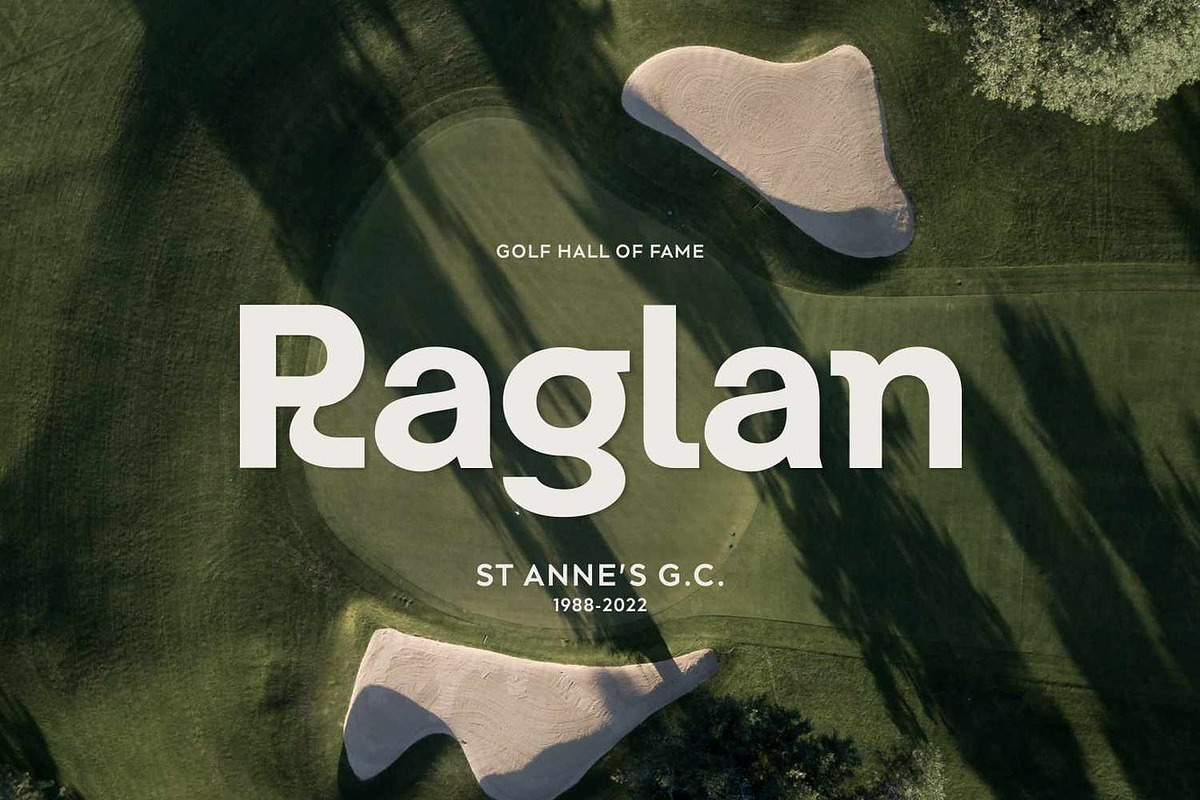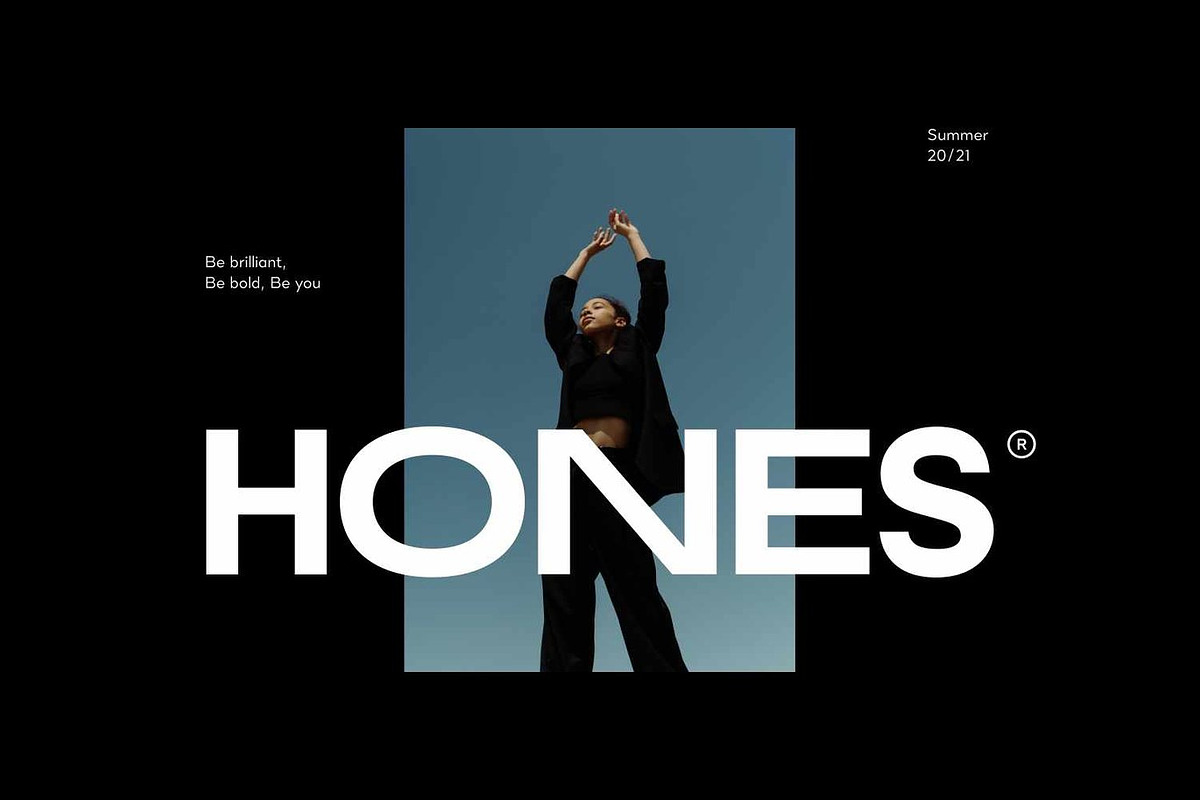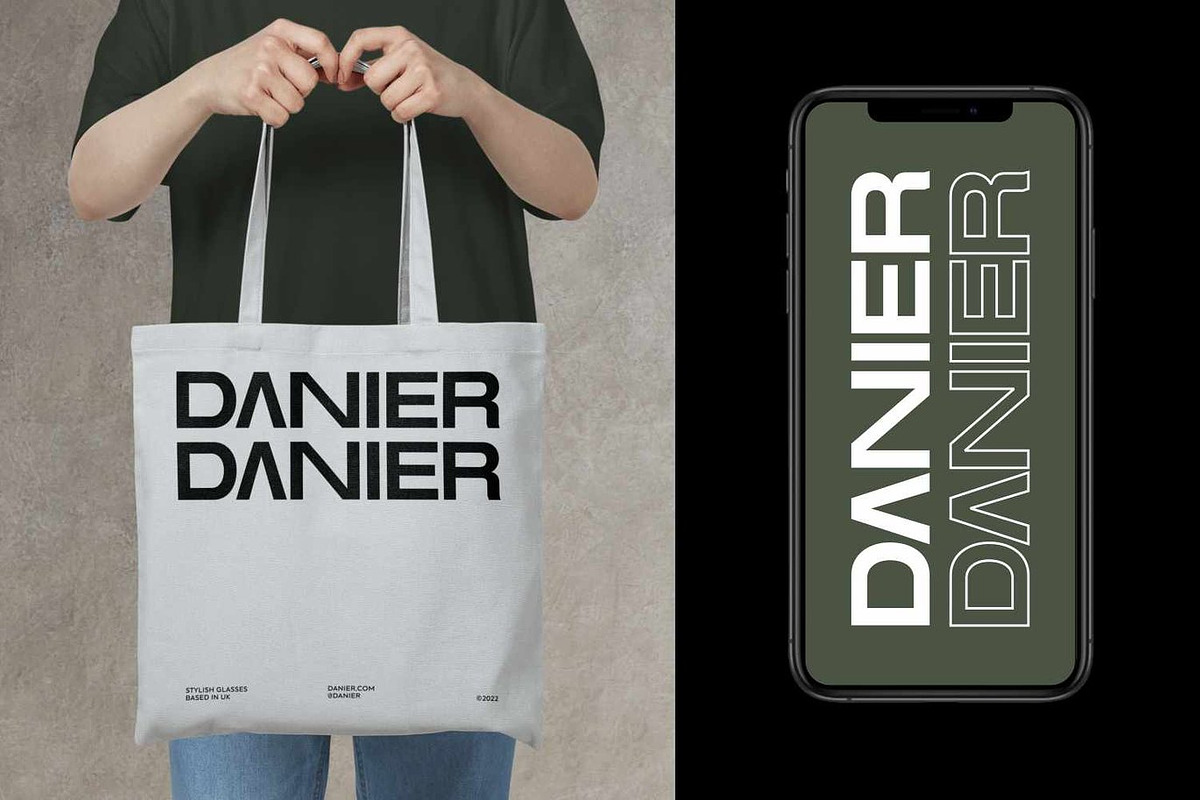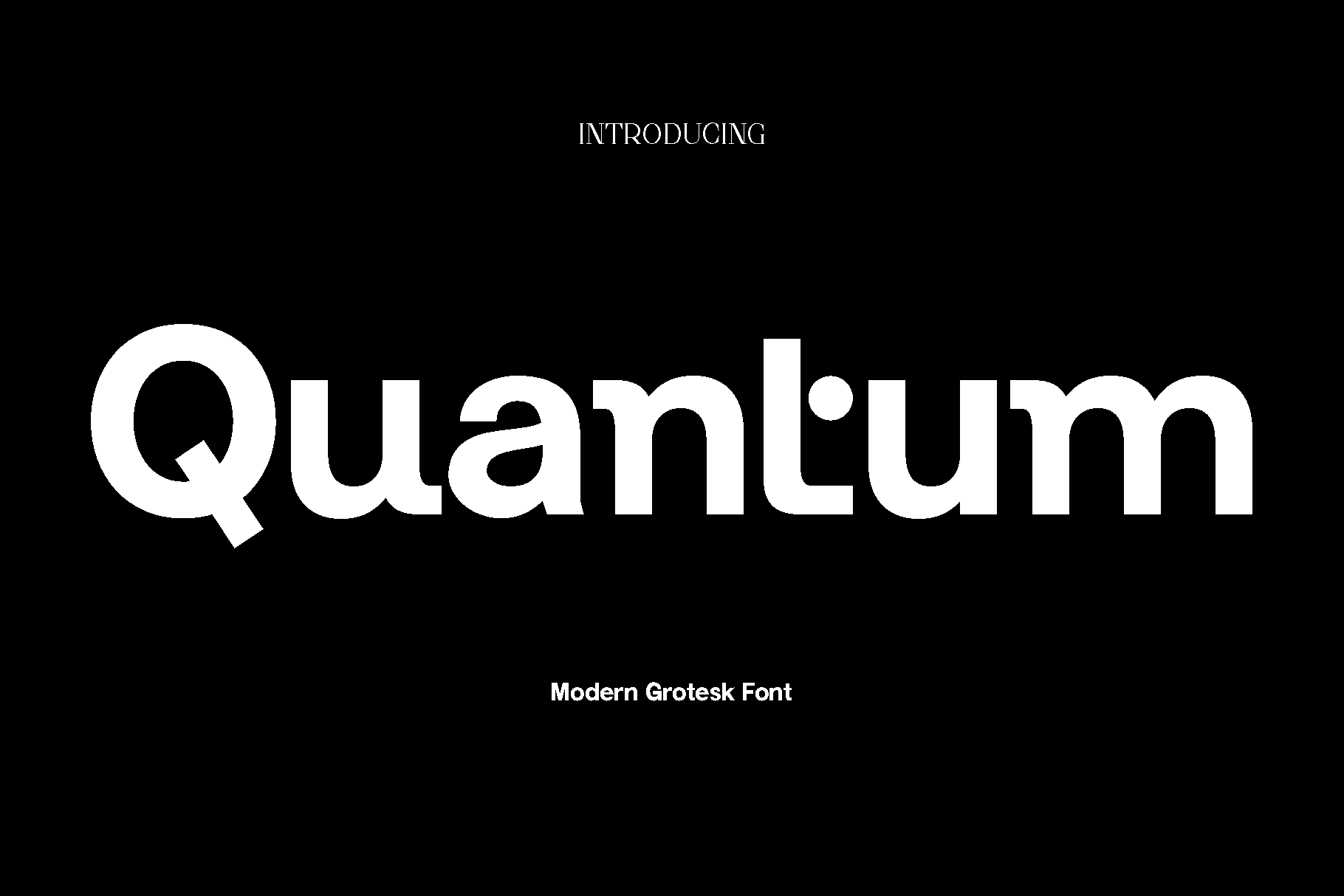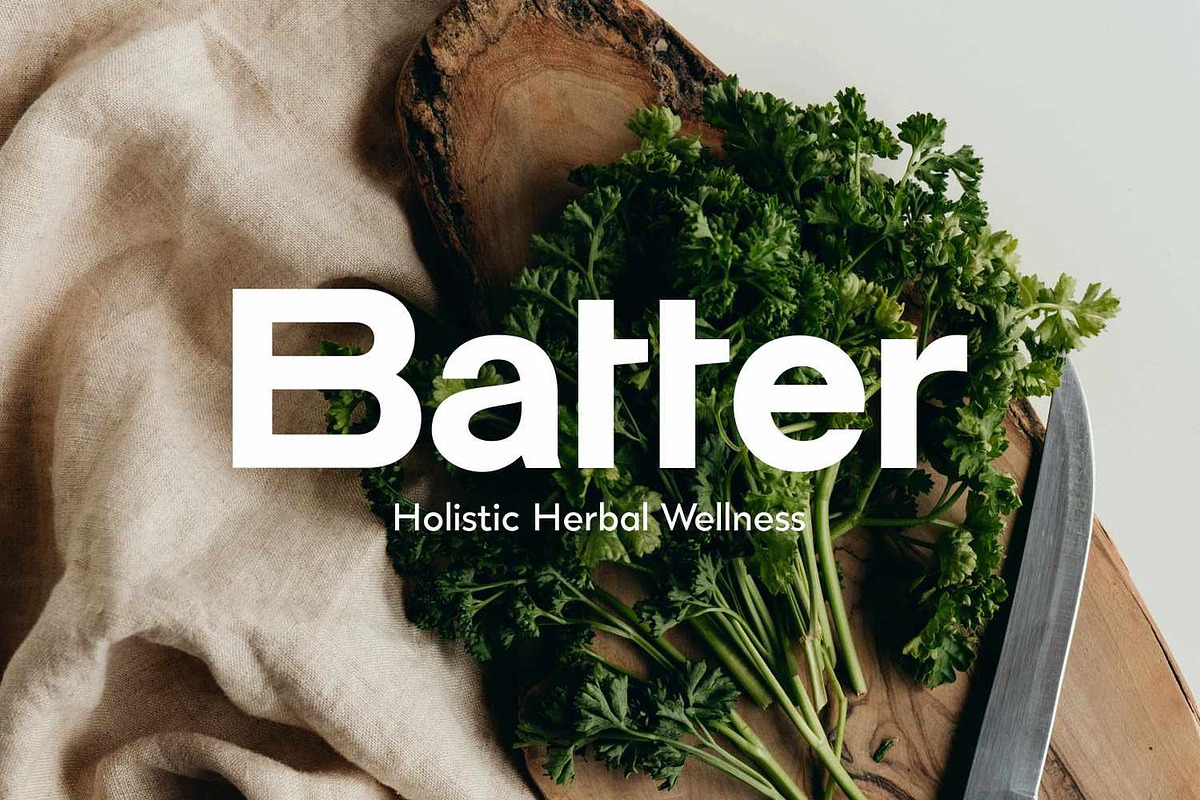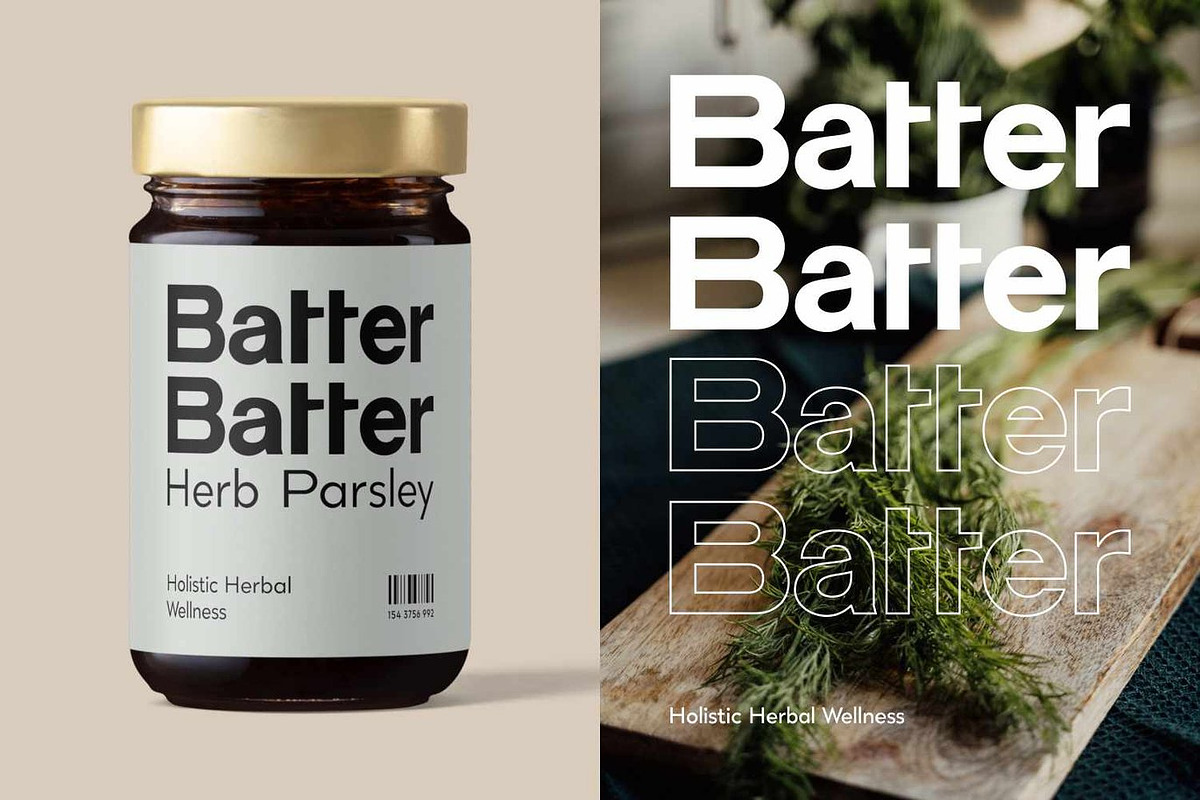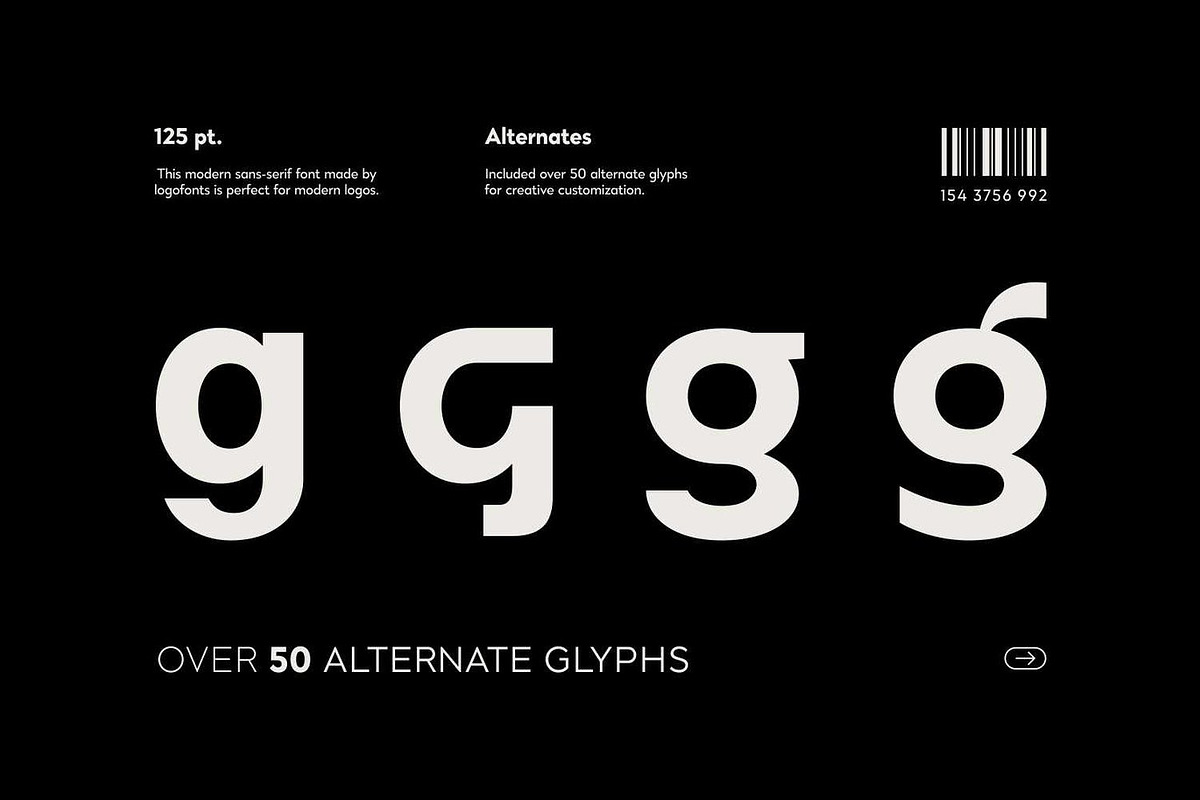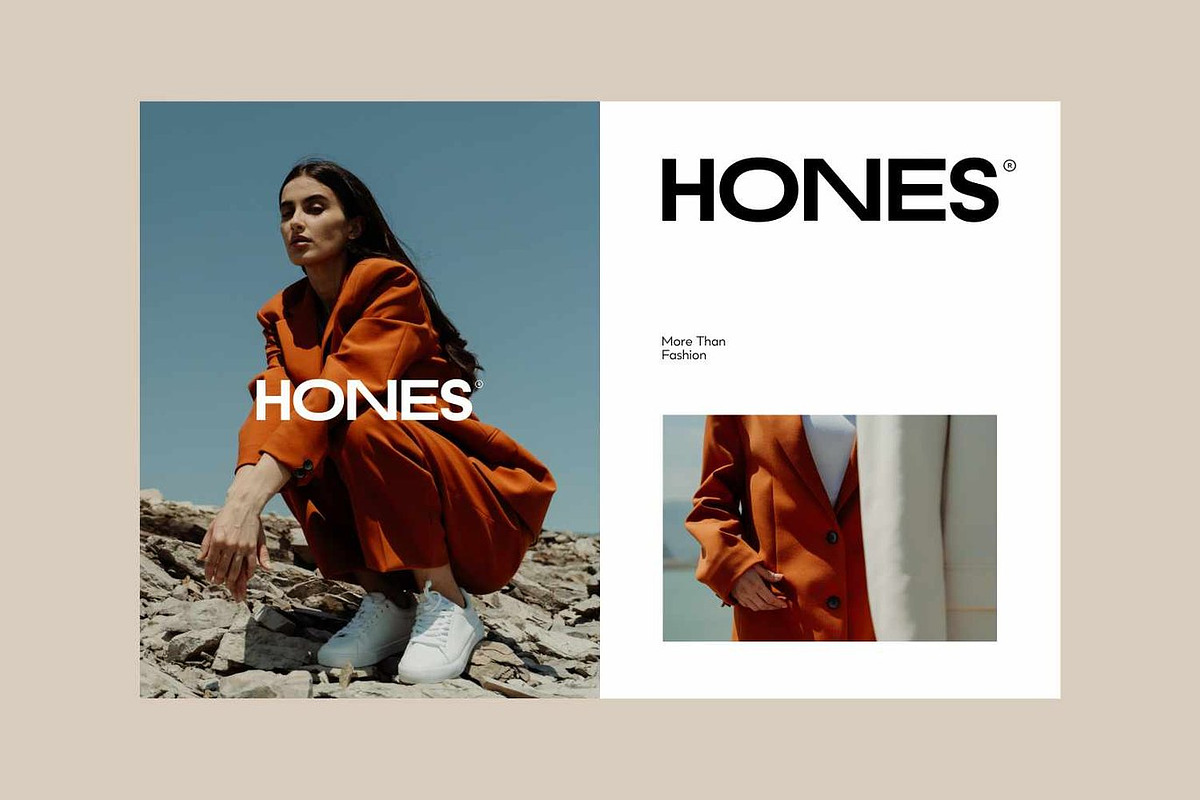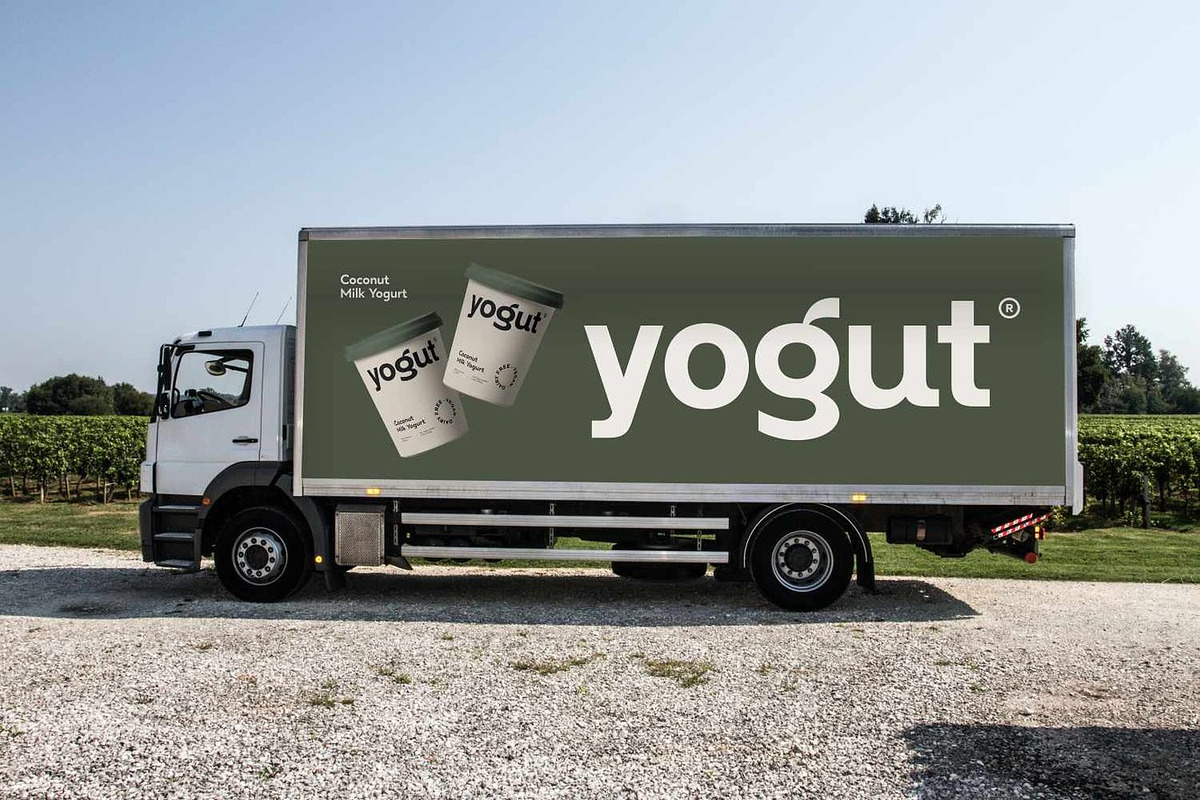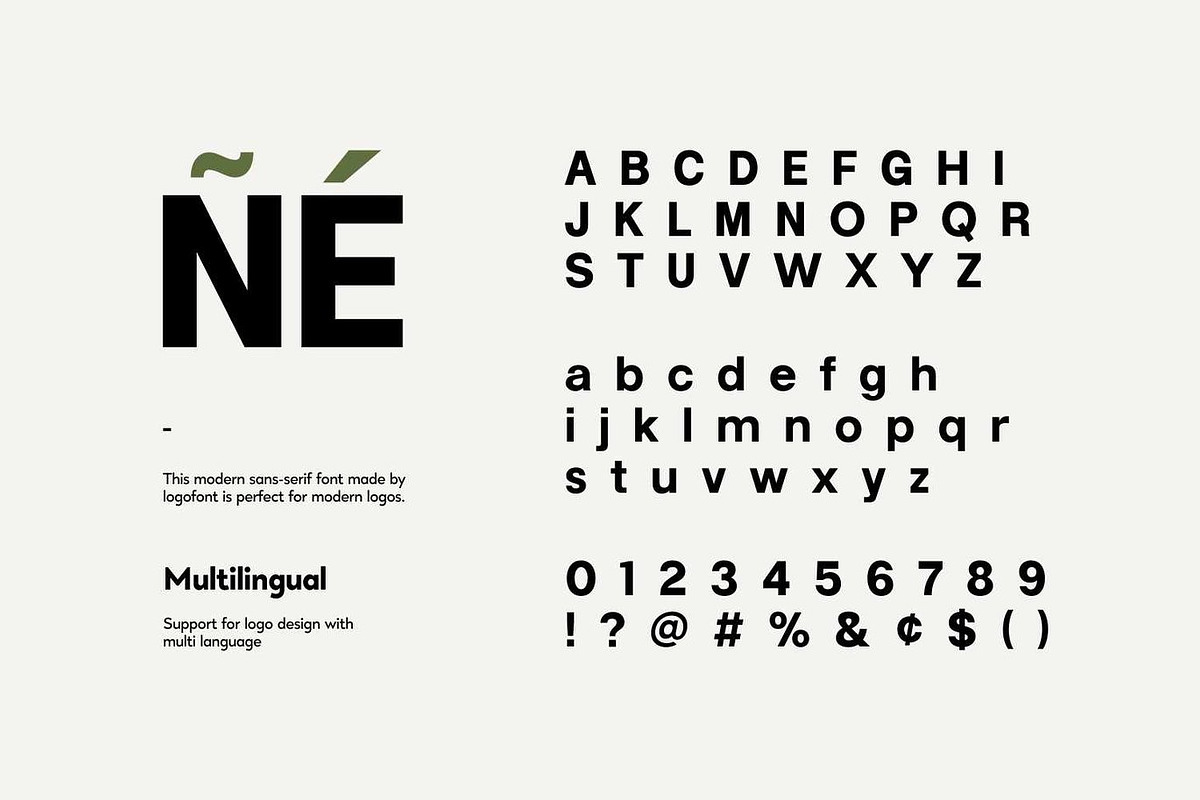
Quantum - Modern Grotesk Font
Quantum is a modern sans serif font designed for versatility and style. With its clean lines and balanced proportions, Quantum is perfect for creating impactful logos, sleek headlines, editorial layouts, and refined branding materials. Its minimal yet confident design brings clarity and sophistication to any project, making it suitable for both digital and print use.
Whether you’re working on a product logo, poster, magazine layout, or packaging design, Quantum adds a professional touch that enhances visual harmony. The font’s geometric precision and modern aesthetic ensure legibility while maintaining a distinctive personality that fits seamlessly into contemporary design trends.
Quantum includes OpenType features such as alternates and ligatures, allowing you to customize and refine your typography effortlessly. This makes it easy to create unique logo marks or expressive headlines that stand out.
- Uppercase & Lowercase Letters
- Symbols & Punctuation
- Alternates & Ligatures (OpenType)
- Product Logos & Branding
- Posters & Headlines
- Editorial & Magazine Design
- Web & UI Design
- Packaging & Stationery
✨ Quantum brings modern simplicity and elegance to your creative projects. Its refined design makes it ideal for brands and designers seeking a clean, professional, and timeless sans serif typeface.